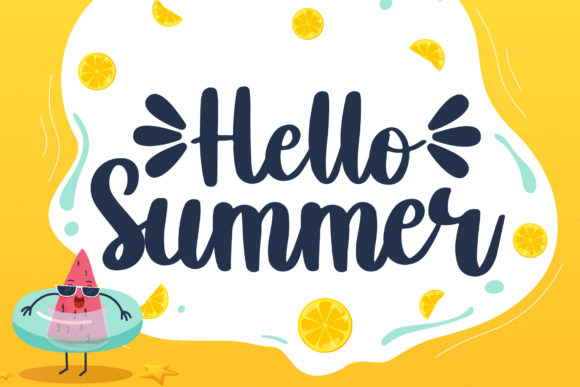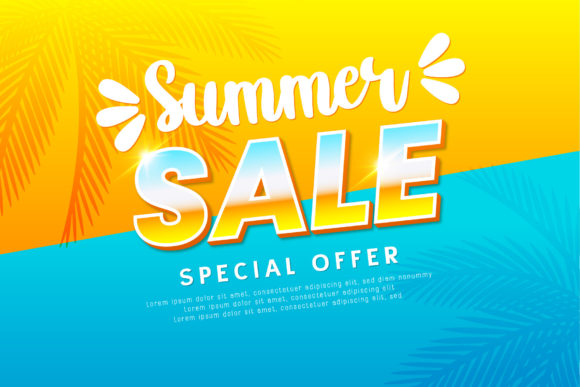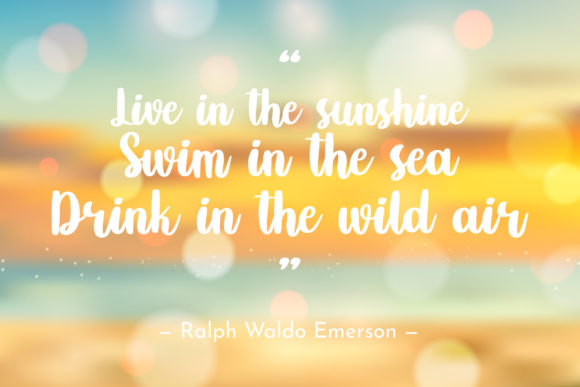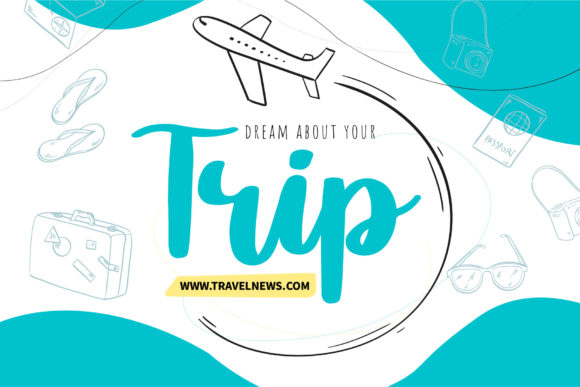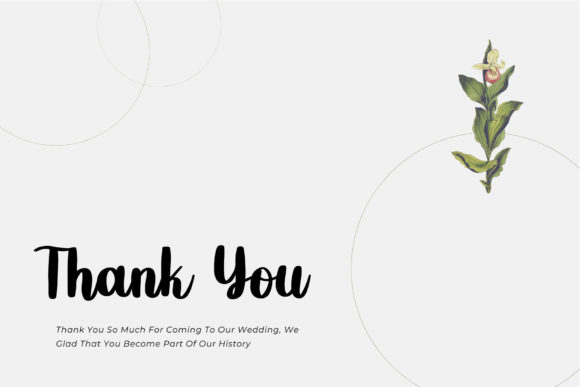
Hello Summer Font
Hello Summer is a playful and captivating script font that adds a cheerful and vibrant touch to a wide array of design projects. Its fun and gorgeous style makes it an ideal choice for a variety of creative endeavors.
When used in blog posts, Hello Summer instantly captures the essence of the season. Its lively and spirited letterforms evoke feelings of warmth and excitement, making it perfect for creating engaging and eye-catching blog titles, headings, and featured images. Whether you’re sharing travel stories, DIY projects, or summer recipes, Hello Summer adds a vibrant and inviting element to your blog posts.
For branding, Hello Summer brings a sense of joy and energy to your business identity. Whether it’s for a summer-themed product line, a seasonal campaign, or a playful brand identity, the font’s fun and gorgeous design creates a memorable and relatable brand image. Incorporating Hello Summer into your logo and branding materials instantly communicates a lighthearted and approachable vibe.
Advertisements come to life with the addition of Hello Summer. Its vibrant and expressive letterforms grab attention and convey the spirit of the season, making it an excellent choice for print and digital ads. Whether you’re promoting summer sales, events, or special offers, Hello Summer adds a touch of excitement and allure to your advertising materials.
Invitations and greeting cards become more special with Hello Summer’s charming style. Whether it’s a summer-themed party, wedding, or celebration, the font’s fun and gorgeous appearance sets the tone for a joyful and memorable occasion. Its unique flair adds a personalized touch to your designs, making your invitations and cards stand out.
Hello Summer is also a great choice for planners, photo albums, and decorations. Its playful and lively design enhances the visual appeal of these items, adding a sense of fun and positivity. Whether you’re designing planners for the summer season, creating photo album titles, or adding decorative elements to party decorations, Hello Summer brings a touch of sunshine to your projects.
In conclusion, Hello Summer is a fun and gorgeous script font that adds vibrancy and charm to various design projects. From blog posts and branding to invitations and decorations, its playful and expressive style makes it an ideal choice for capturing the spirit of the season and creating engaging and delightful designs.